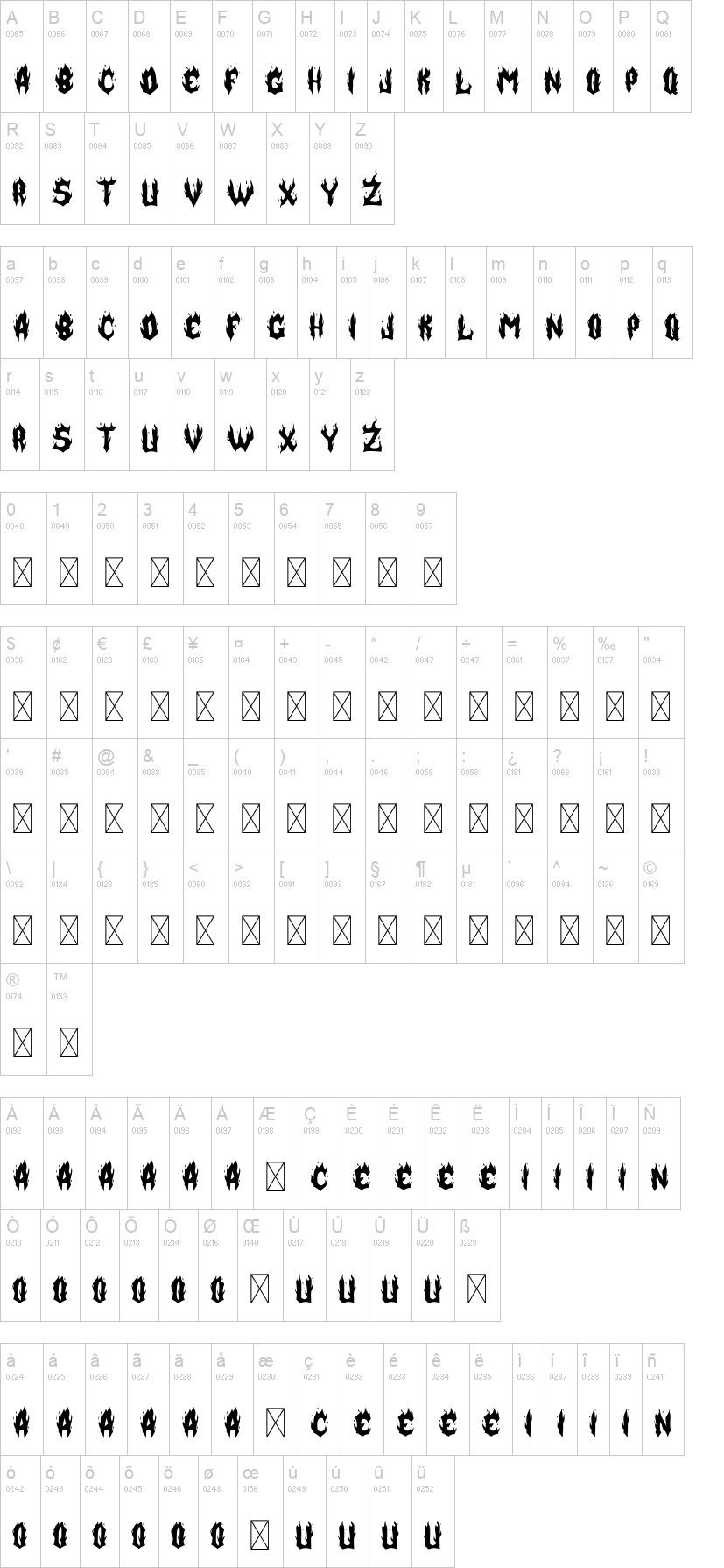
Note of the authorHellbone is new font from Aphriell Art, hot feel character set. Hellbone inspire from Fire and Hell.
Hellbone is suitable font for many creative products & designs.